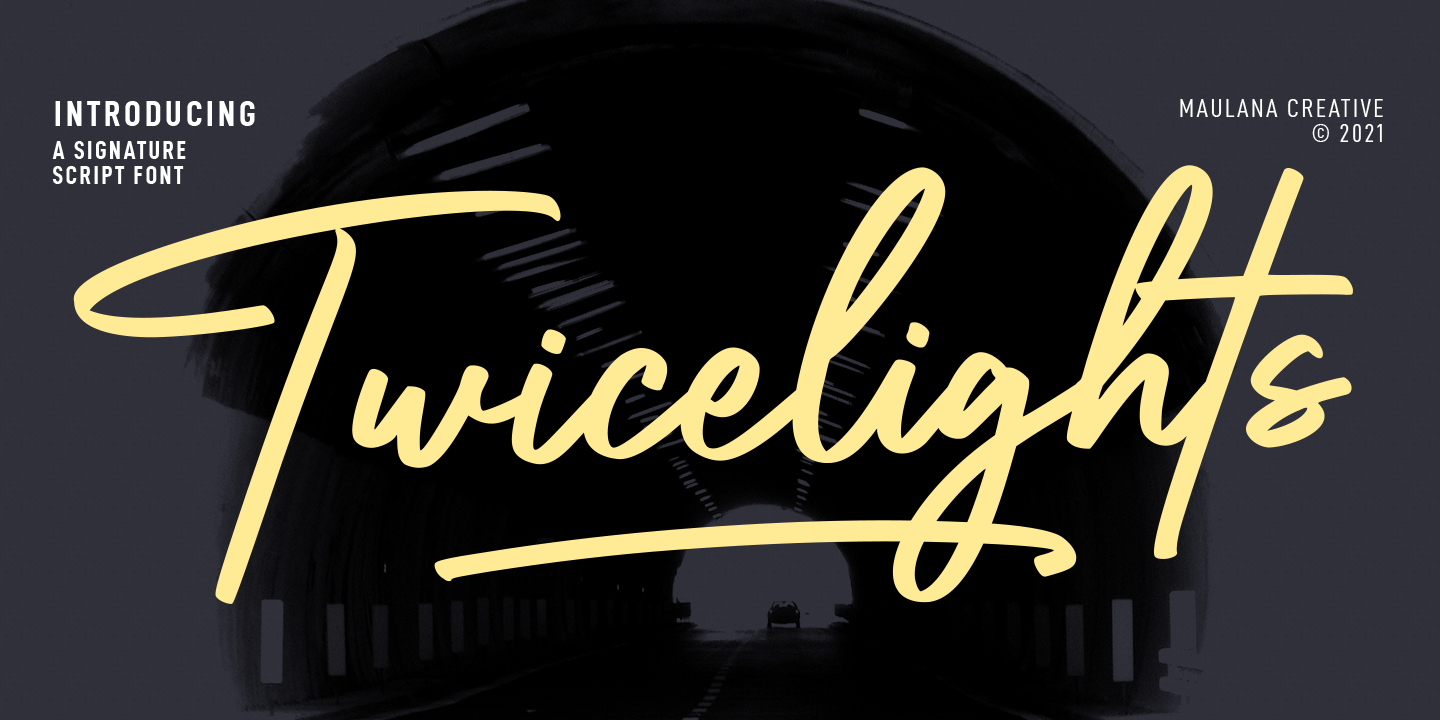
Twicelights Font is perfect for evening event branding, twilight romance campaigns, ambient lighting design, sophisticated nightclub identities, luxury evening wear fashion, dreamy wedding invitations, atmospheric restaurant signage, and magical entertainment promotions.
Twicelights Font is exciting because it captures the enchanting beauty and mystical allure of twilight hours through its ethereal character design that embodies the magical transition between day and night and the romantic mystery of evening illumination. Its atmospheric styling and enchanting appeal make it the perfect choice for brands that want to communicate magic, romance, and the captivating power of twilight moments.
Twicelights Font family includes multiple atmospheric variations: Twicelights Light, Twicelights Regular, Twicelights Medium, Twicelights Bold, Twicelights Glow, and Twicelights Shadow, along with luminous decorative elements and twilight symbols, providing designers with comprehensive tools for creating authentic evening and atmospheric-themed brand experiences.
When exploring atmospheric typography solutions, Twicelights Font Free Download stands out as the definitive choice for designers working on evening and romantic projects that require genuine atmospheric sophistication and enchanting appeal. This mesmerizing typeface embodies the essence of twilight magic while offering the versatility needed for modern evening entertainment and romantic marketing communications. The font's mystical character and atmospheric resonance create immediate connections with audiences who appreciate evening elegance and twilight experiences.
Entertainment professionals consistently choose Twicelights Font for projects requiring authentic atmospheric sophistication and powerful enchanting appeal. Its carefully crafted letterforms feature twilight-inspired influences that work exceptionally well in both large-scale evening venue signage and intimate romantic event materials. The font's ability to convey mystery and atmospheric beauty while maintaining strong brand recognition makes it invaluable for comprehensive identity systems in the evening entertainment, romantic services, and atmospheric experience sectors.
Whether you're developing nightclub identities, creating romantic event marketing materials, or designing atmospheric dining promotions, Twicelights Font delivers the authentic twilight character and enchanting appeal that resonates with audiences who cherish evening magic and atmospheric experiences. Its mystical significance and atmospheric design ensure your projects capture the captivating beauty of twilight moments while maintaining contemporary professional standards that attract modern evening entertainment seekers and romantic experience enthusiasts.